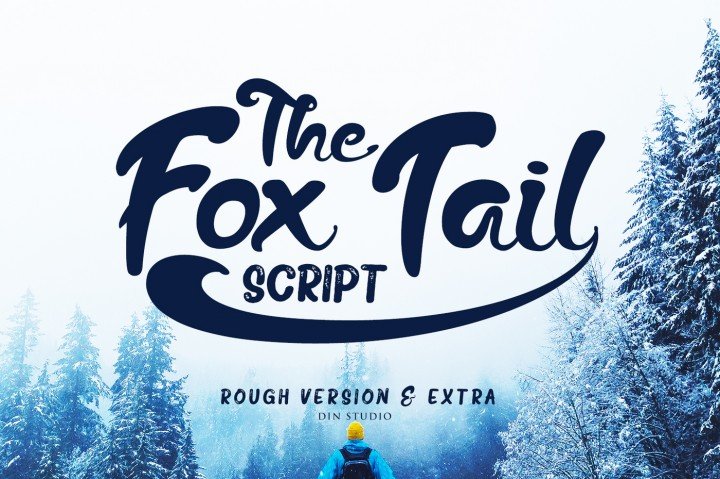
The Fox Tail Script Font
Hi designer. Introducing The Fox Tail Font. It is designed and shared by Din Studio . The Fox Tail – Font Duo & Extras is a font that is inspired by the retro style and fox’s tail. This font has a unique and interesting shape. The Fox Tail looks lovely on wedding invitations, thank you cards, quotes, greeting cards, logos, business cards and more. Perfect for using in ink or watercolour.